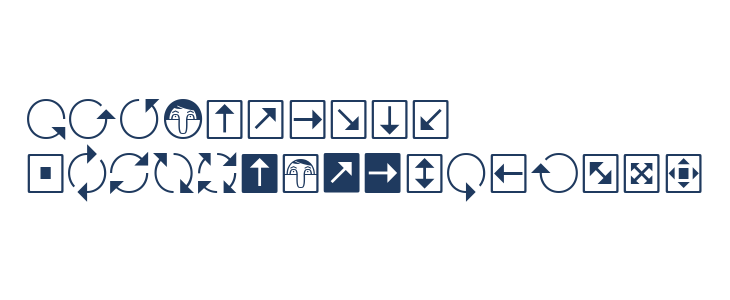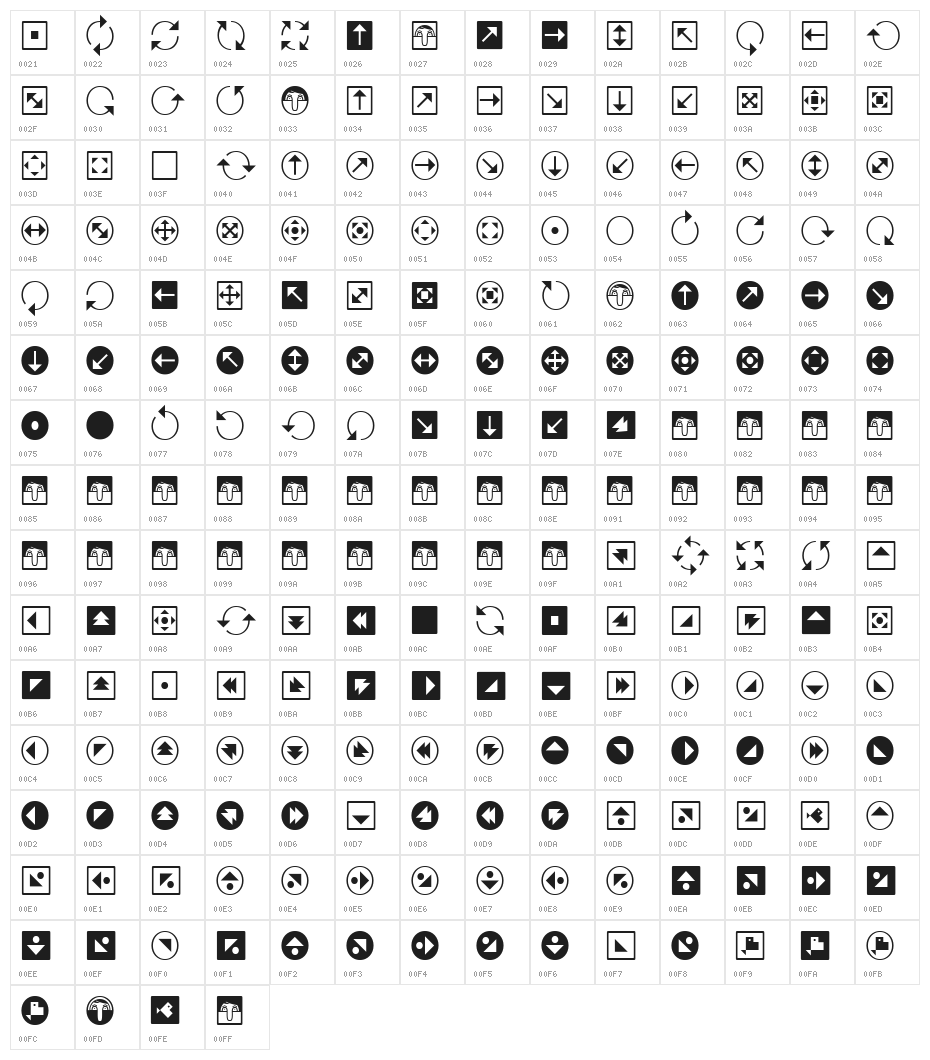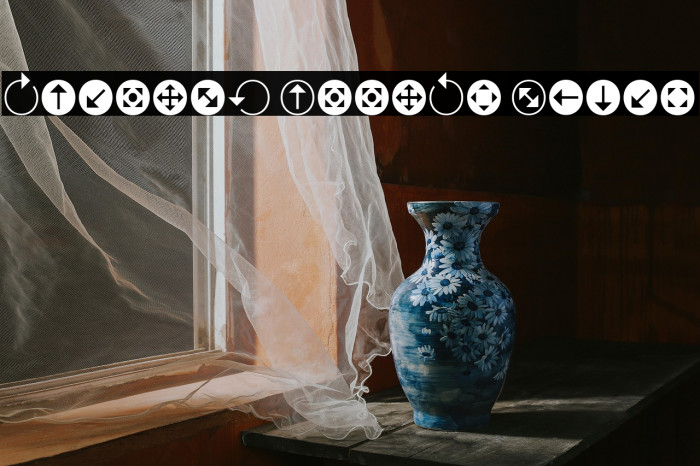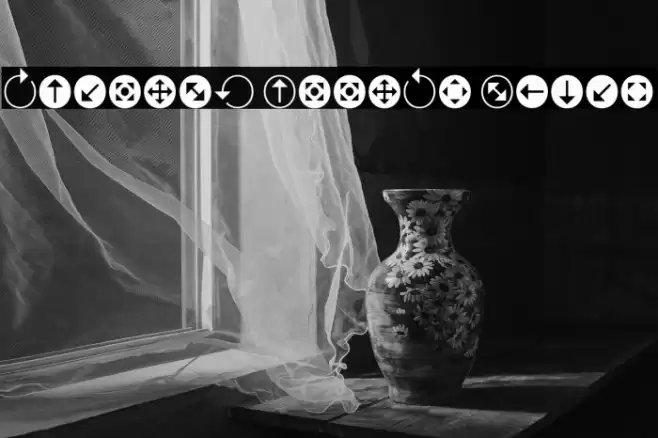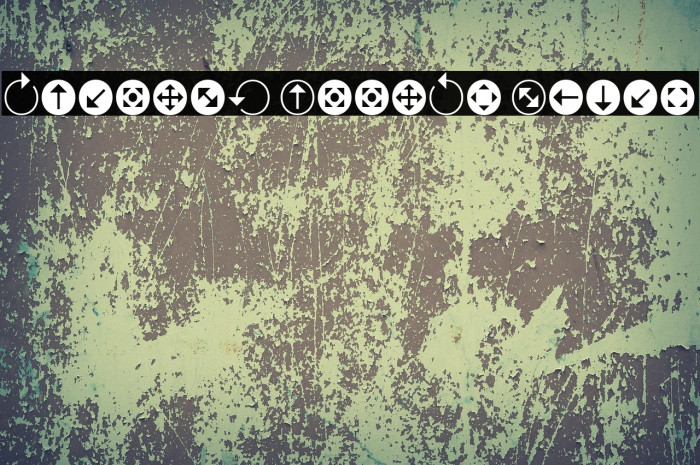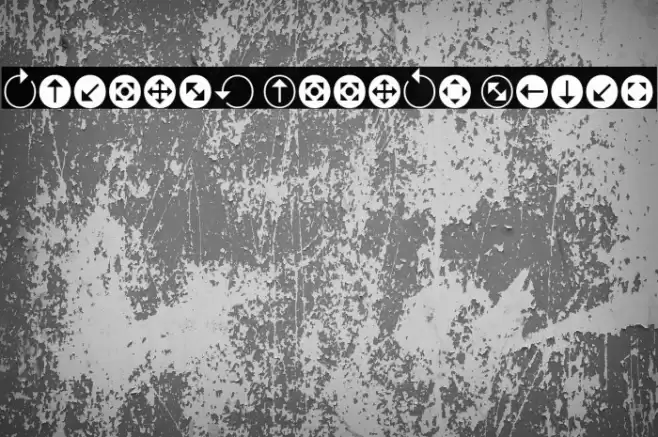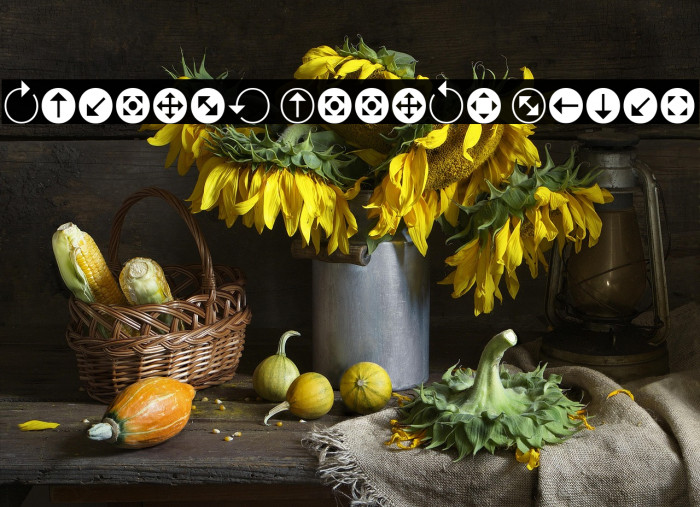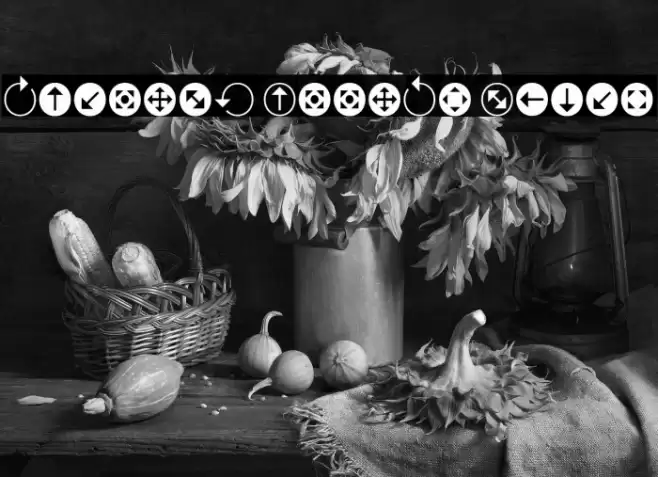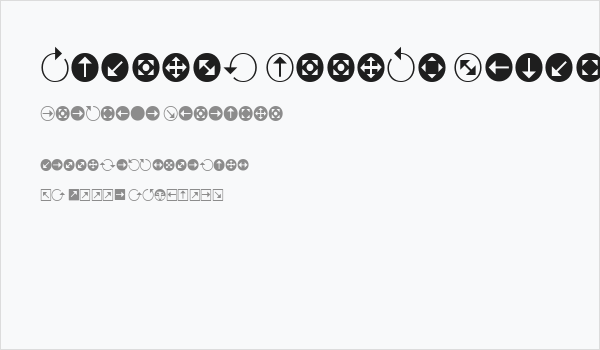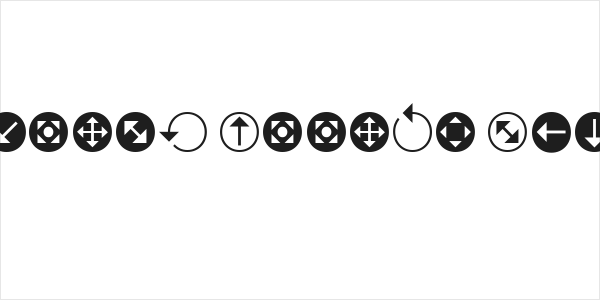
Uchrony Arrows Light Font
Uchrony Arrows Light Description
This collection of symbols features a variety of arrow designs enclosed in circles and squares, with some arrows standing alone. The arrows point in multiple directions, including up, down, left, right, and diagonally. The style is clean and geometric, with a consistent line thickness that gives a balanced and uniform appearance. The symbols are designed to be easily recognizable, making them suitable for navigation or instructional purposes. The use of both filled and outlined shapes adds versatility, allowing for different visual emphases. The overall design is modern and functional, with a focus on clarity and simplicity.
| Use Case | Icons, User Interfaces, Signage |
| Proposed Projects | Ideal for use in navigation systems, instructional guides, user interfaces, or any project requiring clear directional indicators. |